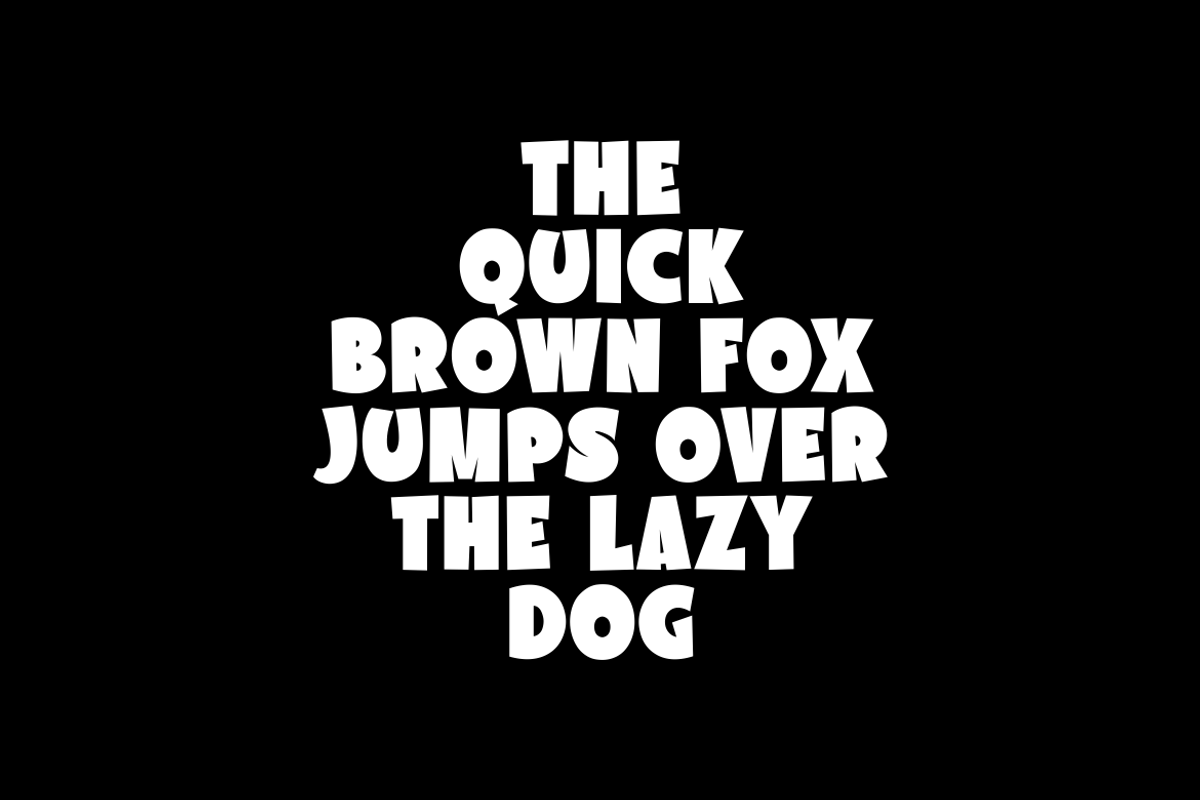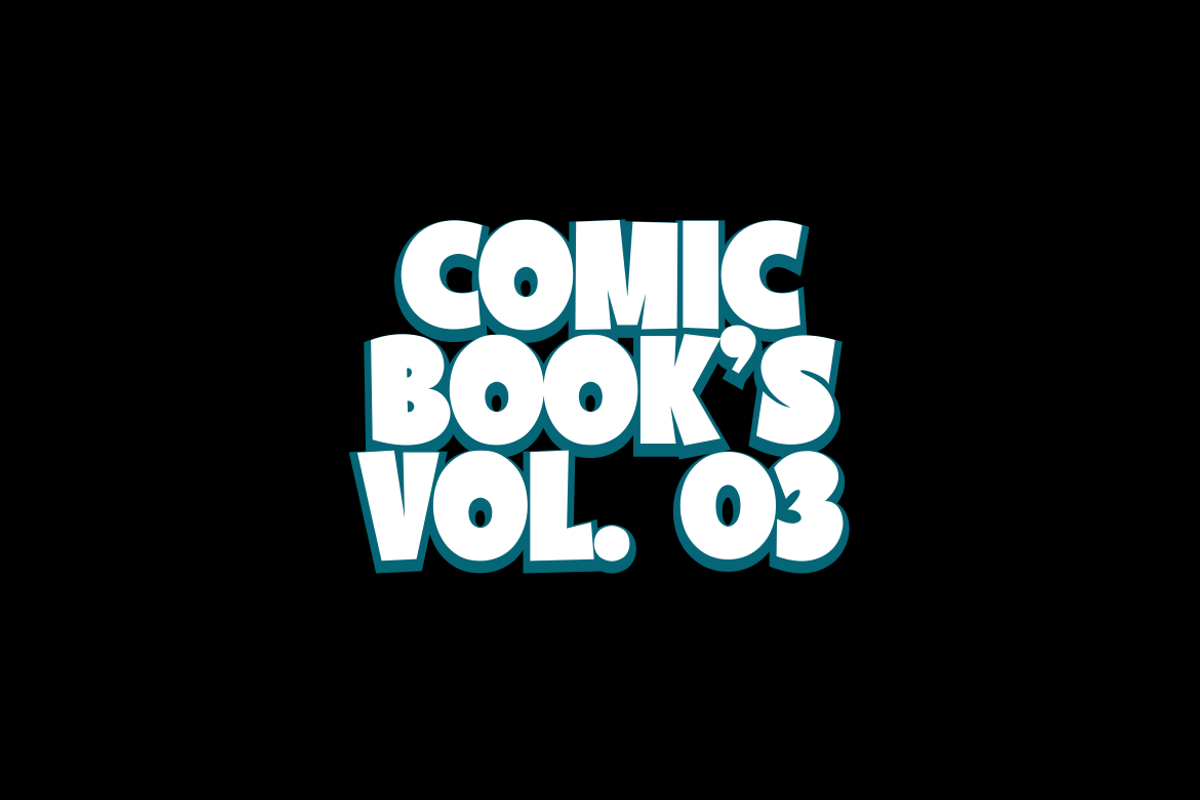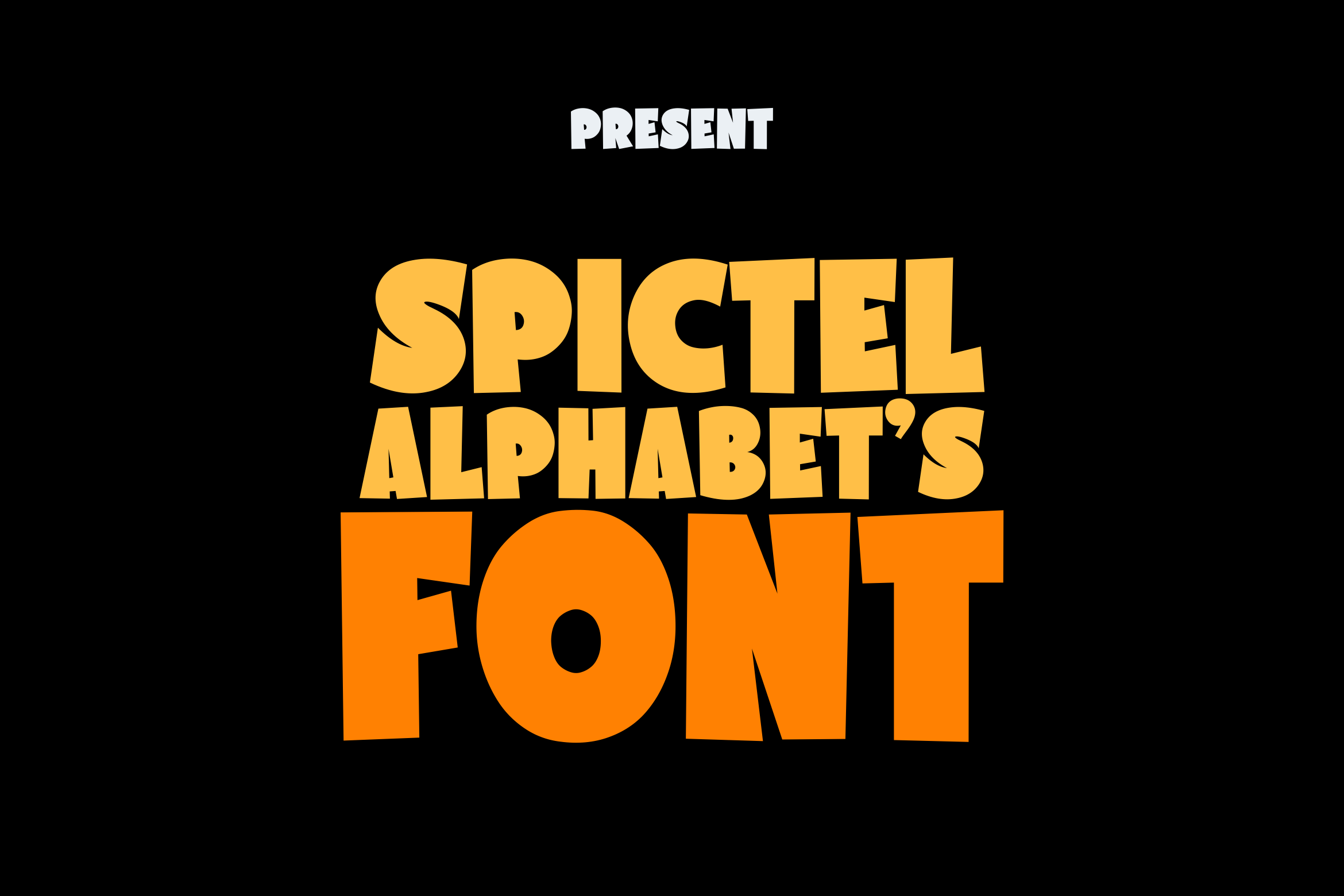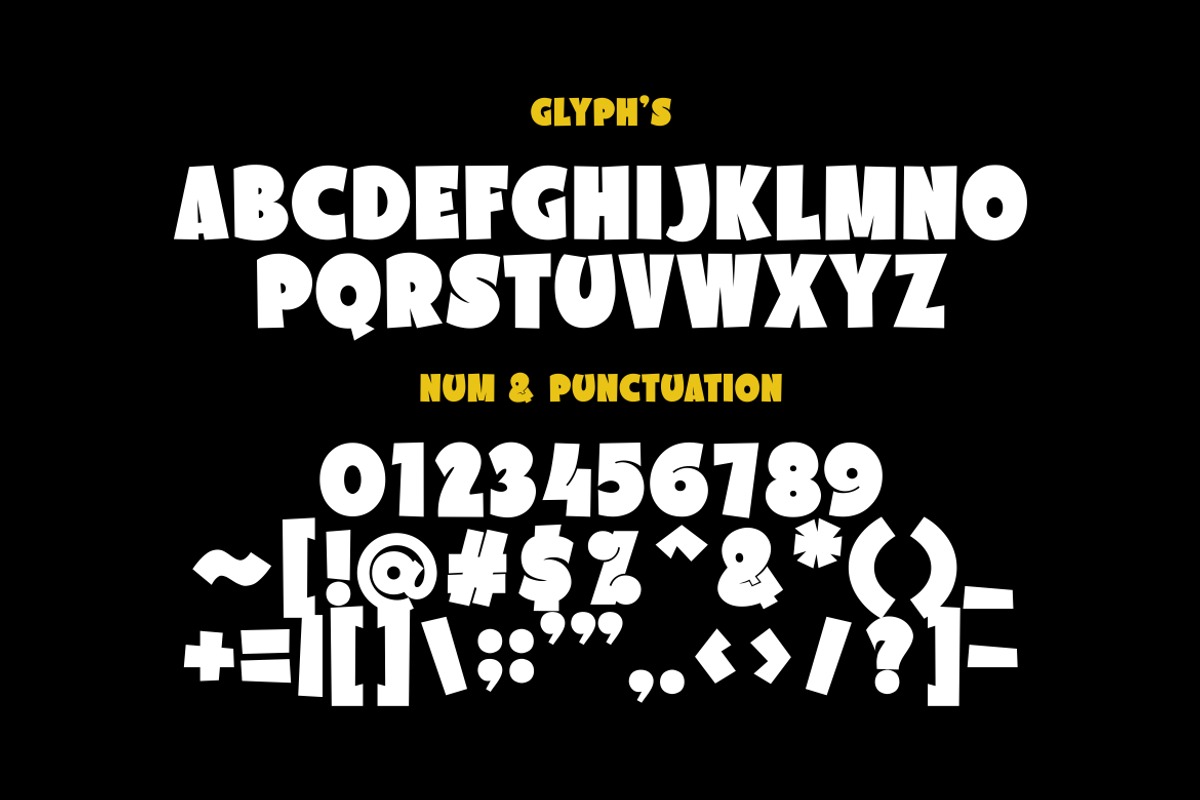
Spictel Alphabets - Display Cut Font
Spictel Alphabet's is a cheerful and playful display font designed to bring fun and energy to your creative projects. With its bold, quirky characters and cartoonish flair, it's perfect for children's books, comic covers, humorous stories, cartoons, and any design that needs a touch of humor and lighthearted charm. Whether you're crafting a colorful comic strip or a joyful book cover, Spictel Alphabet's adds personality and imagination to every letter.